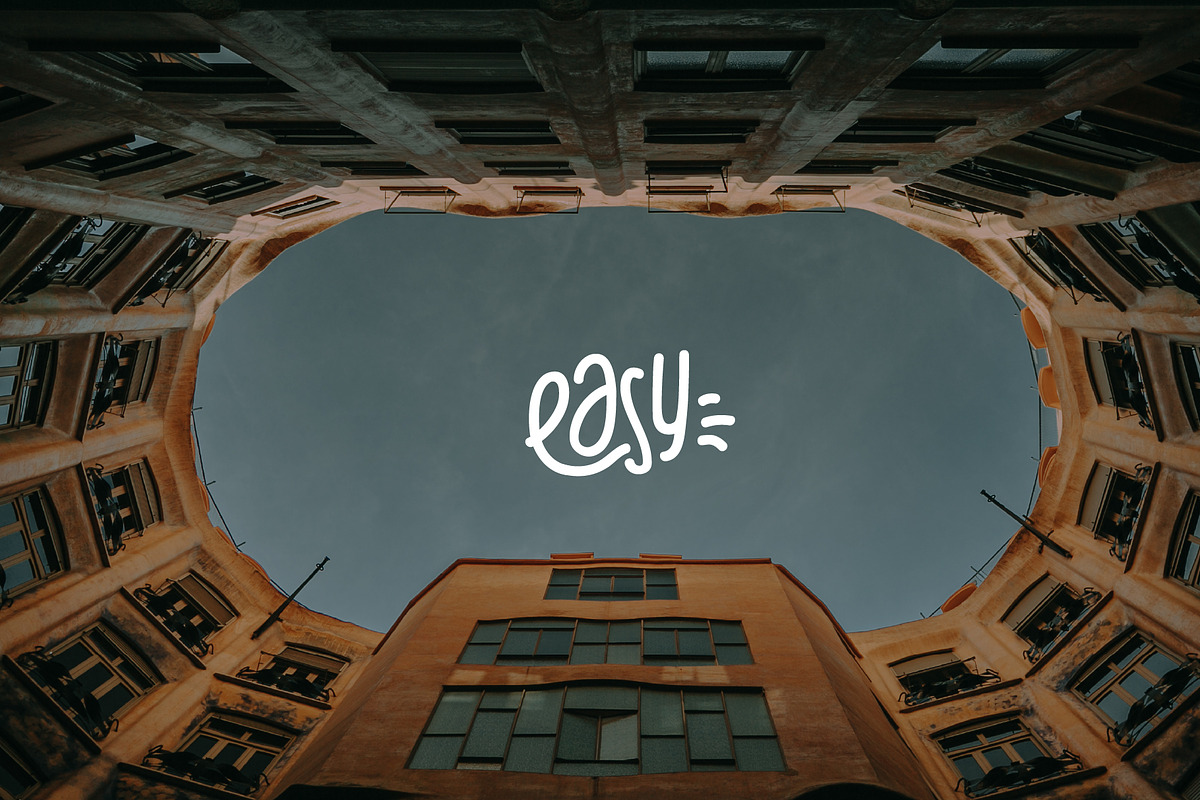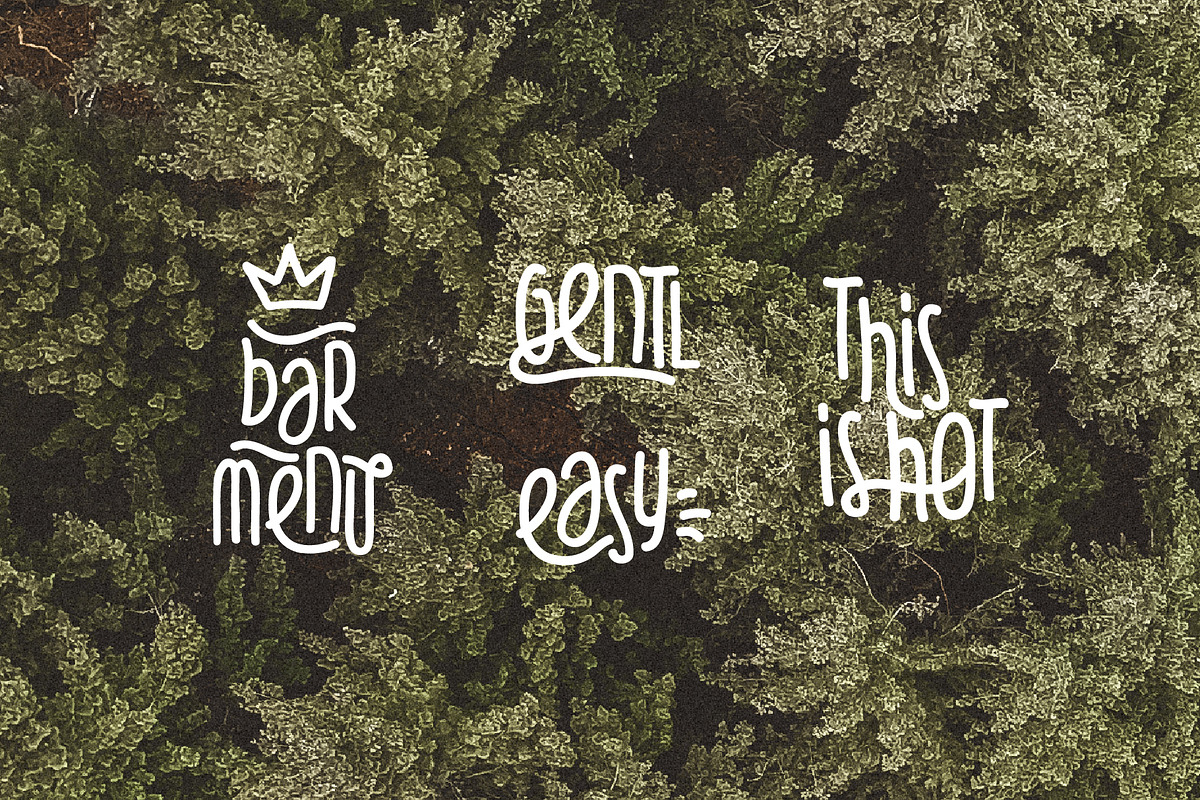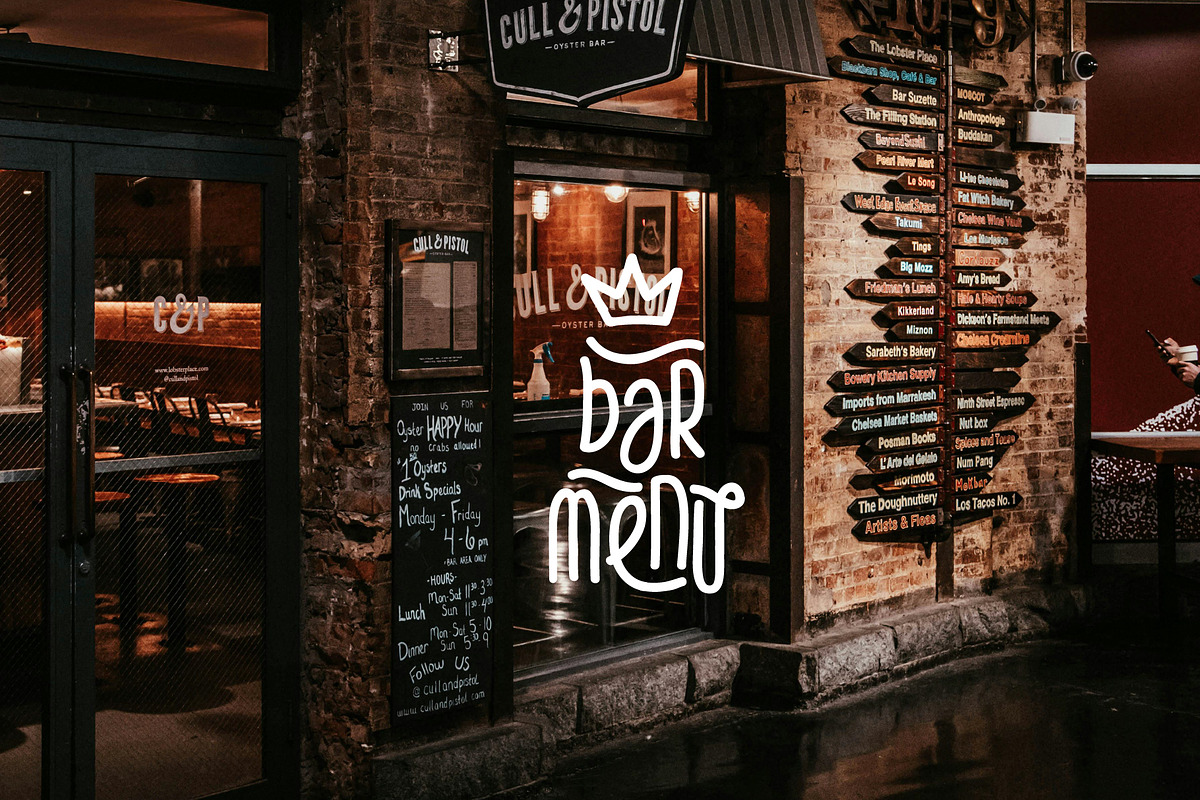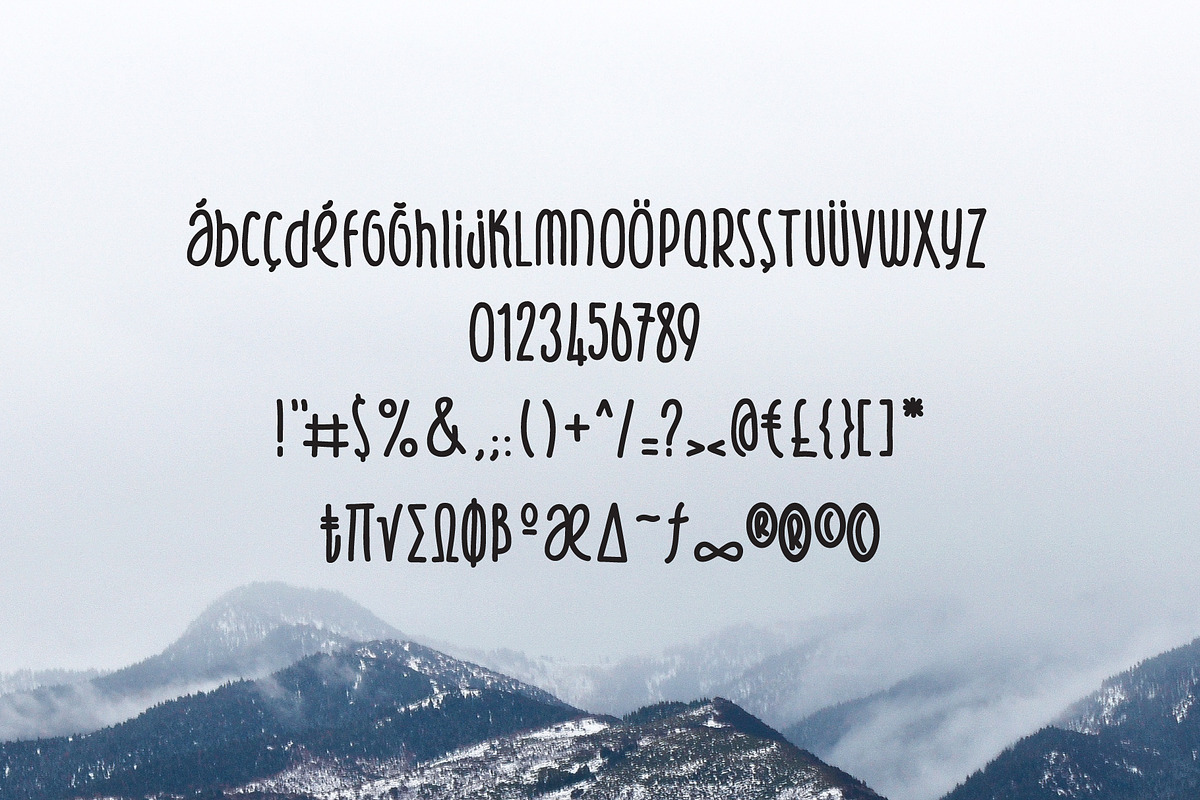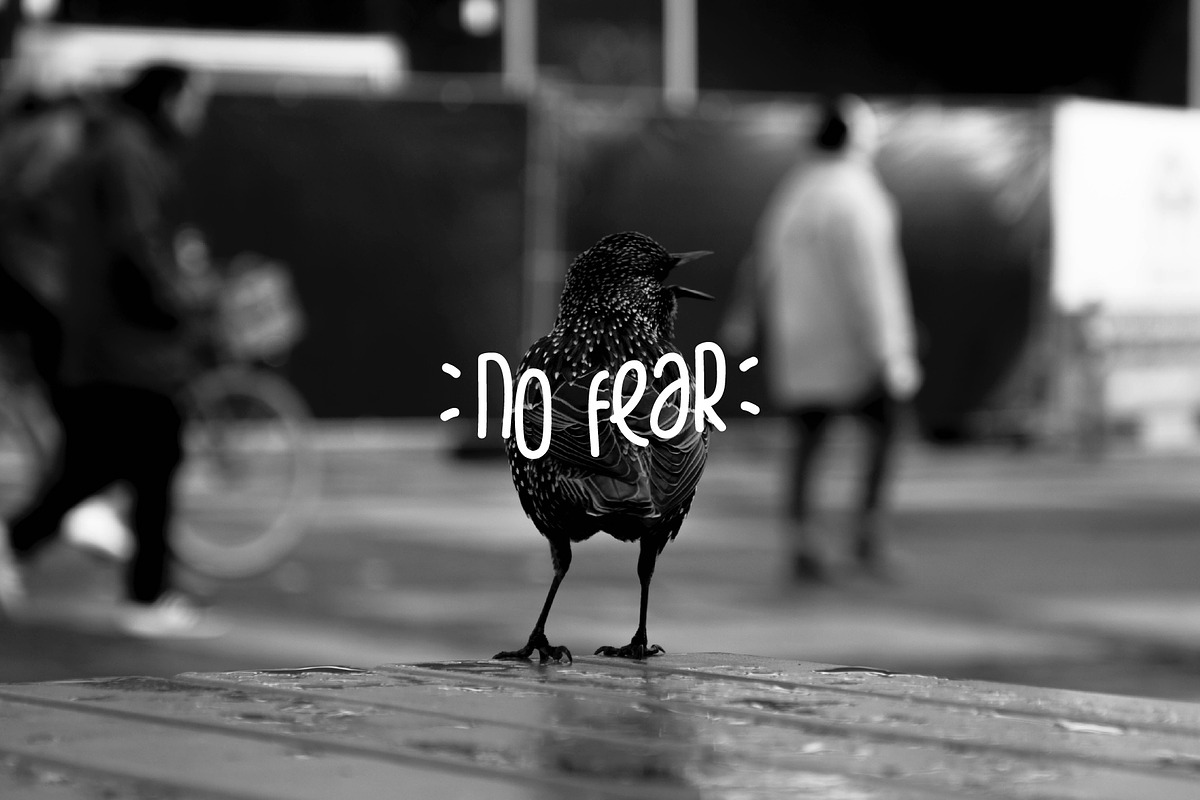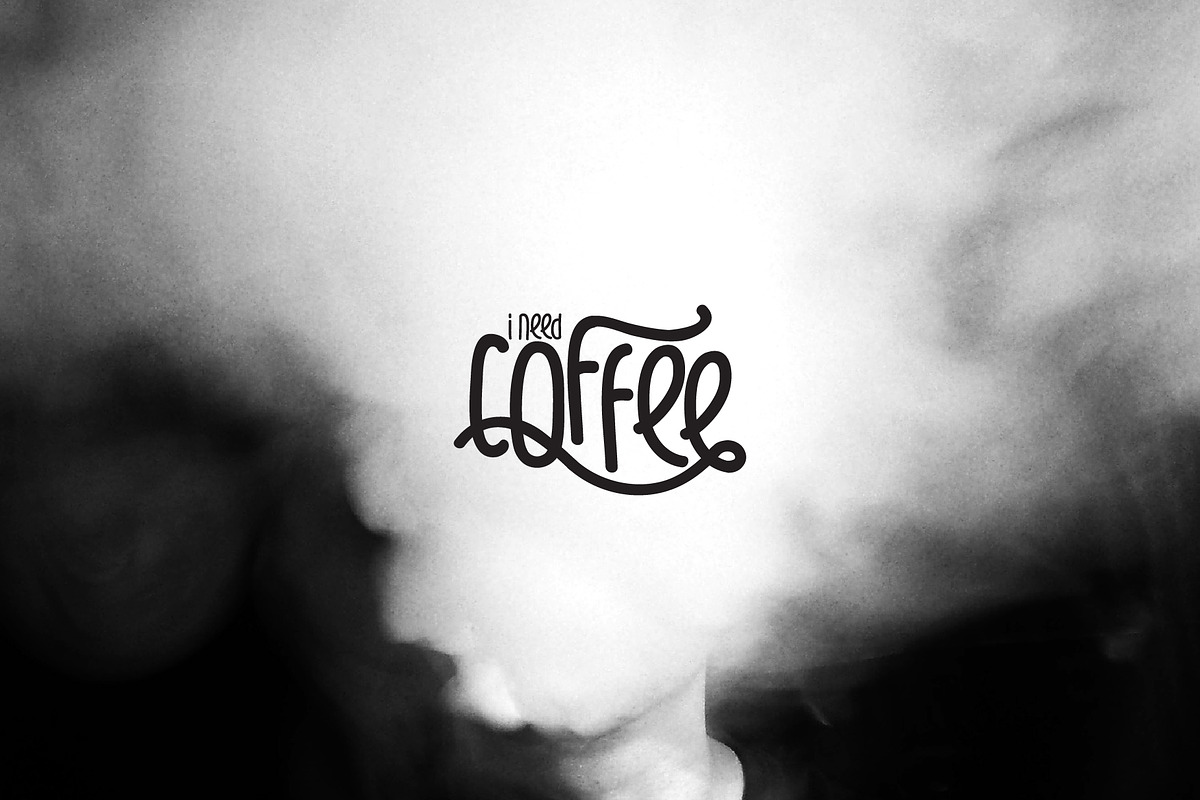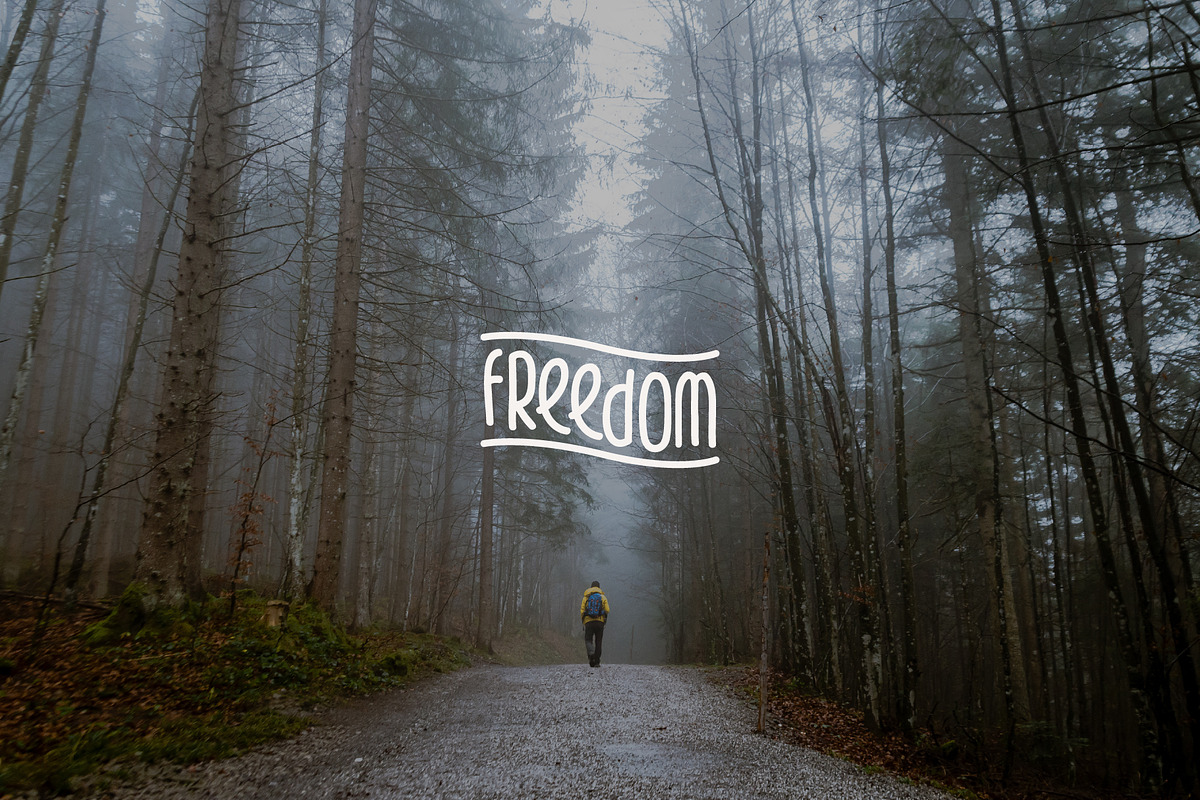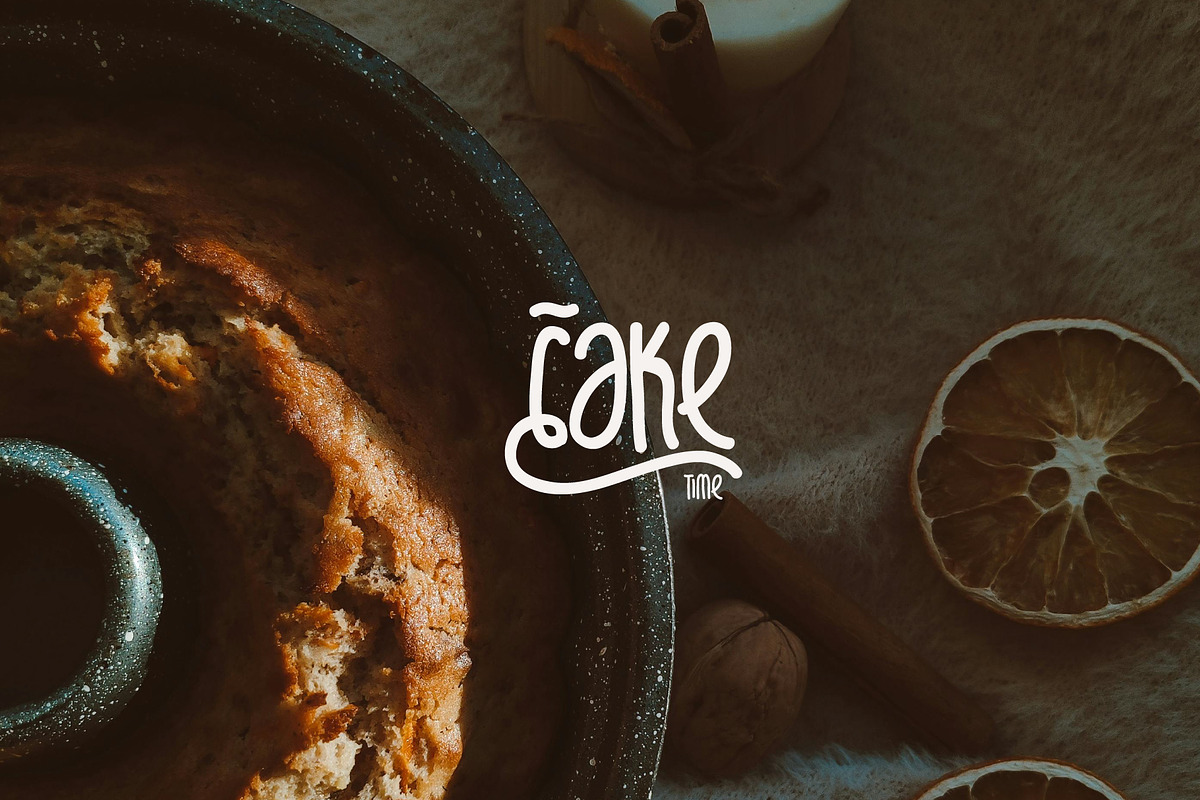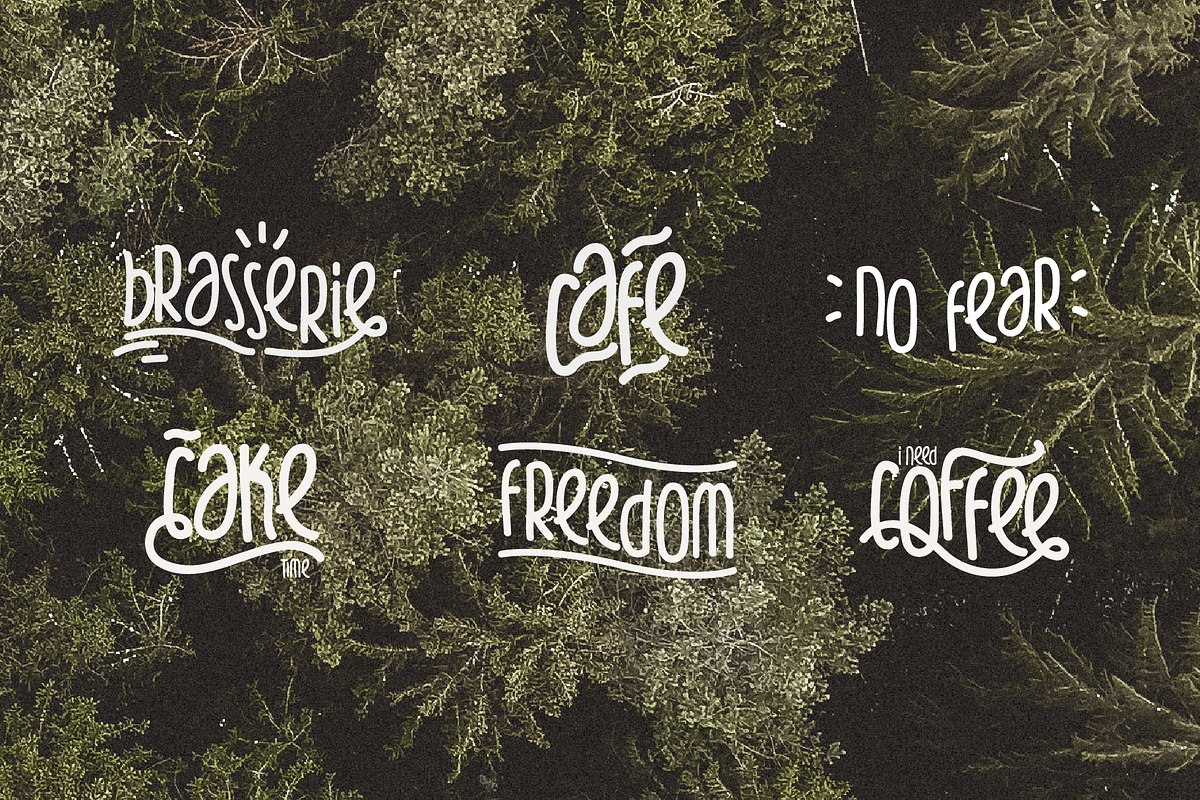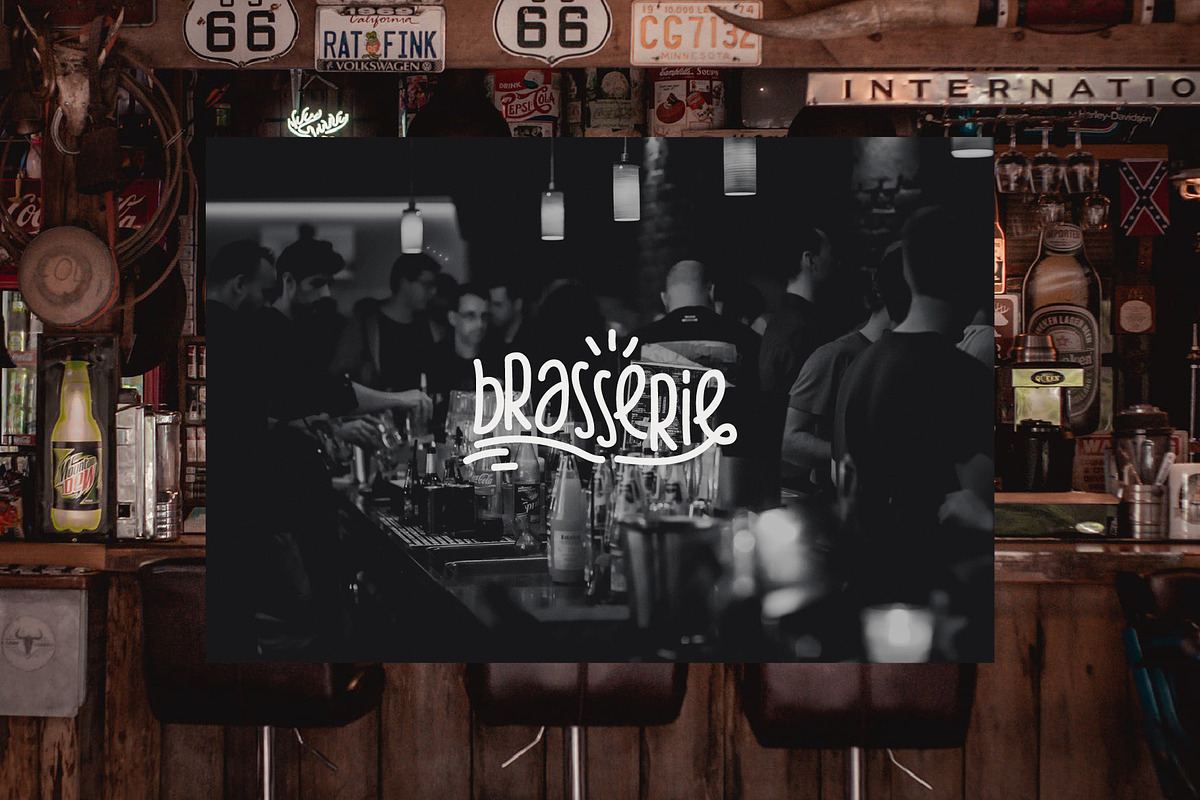
Gentl Typeface
Hello, here's a calm, soft, and gentle handwritten font for your designs. You can create your text as you wish by placing the individual letters and shapes within the vector file side-by-side.